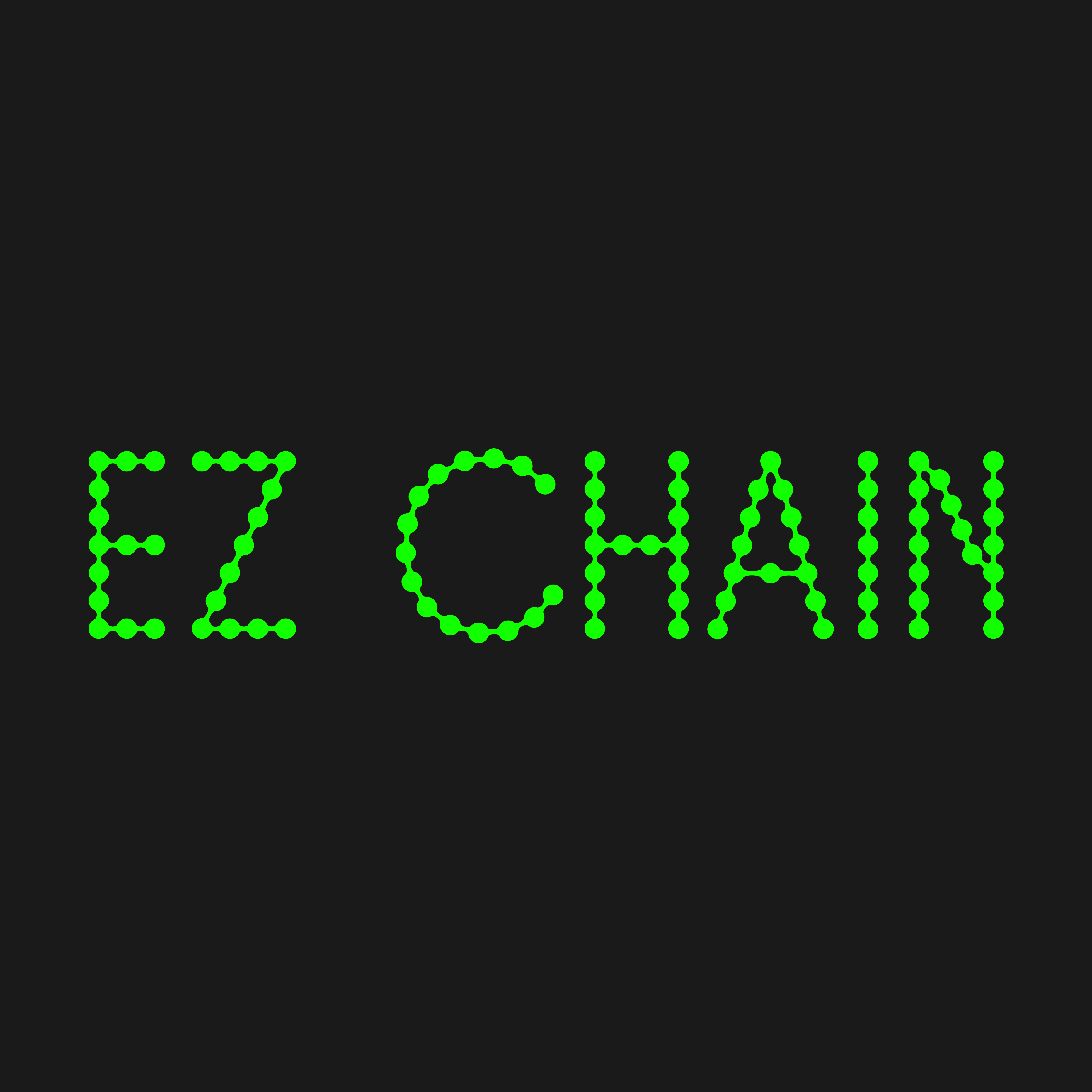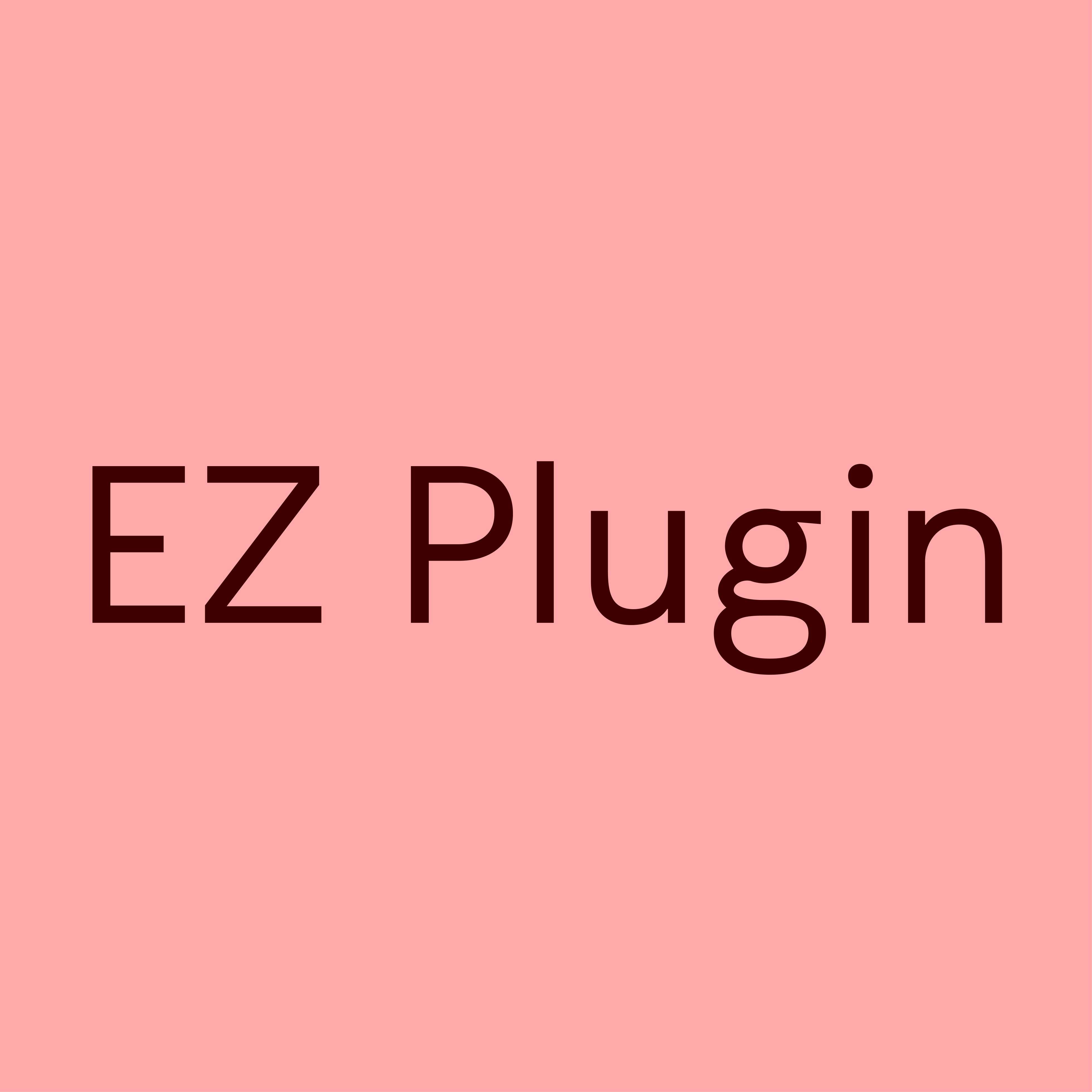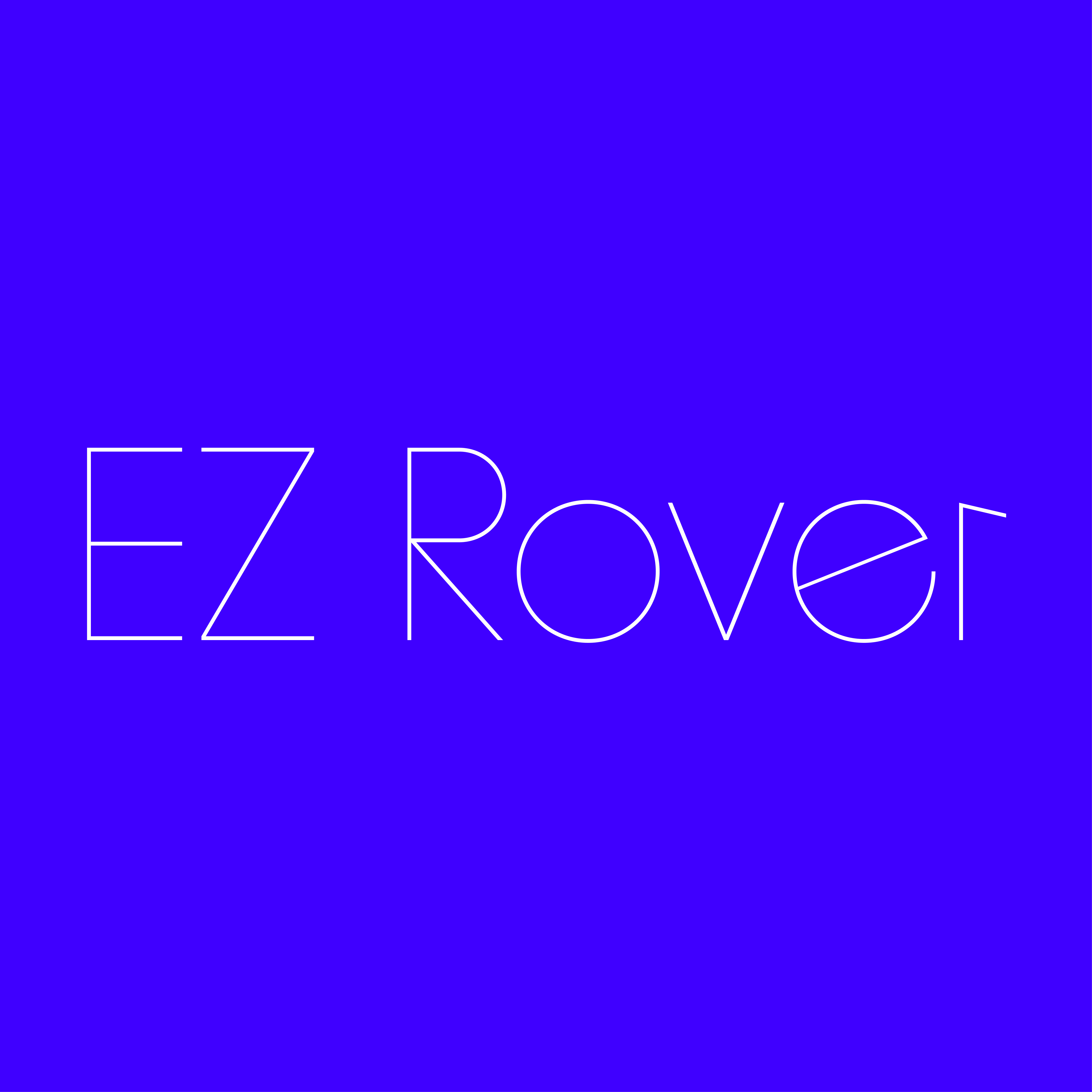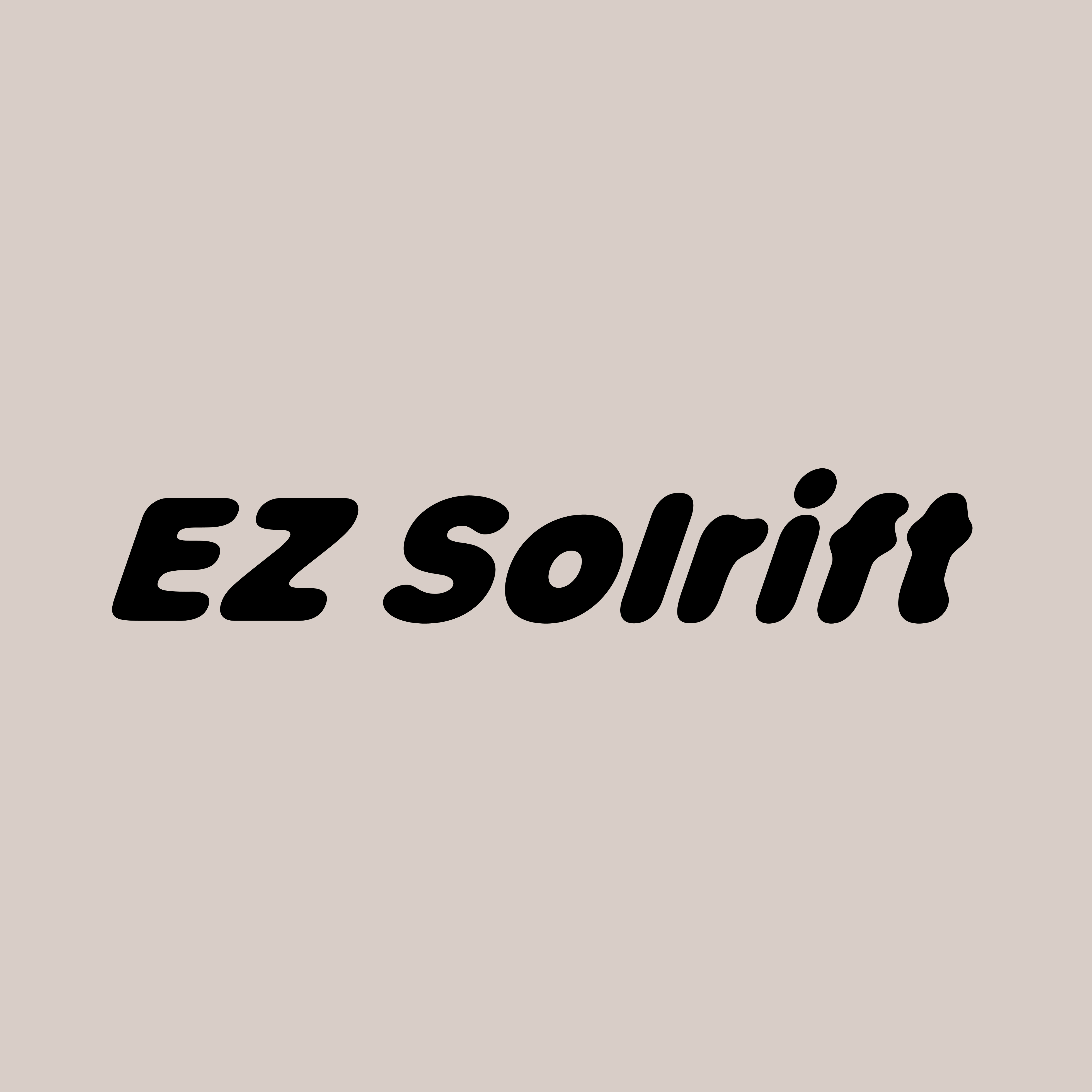
EZ Chain
Eazy Fonts · 2022
EZ Chain is a unique display font inspired by ballchains, creating organic, free-flowing letterforms that break away from traditional rigid grid-based dotted designs. EZ Chain is an modern display typeface that transforms the utilitarian geometry of industrial ball chains into a fluid typographic system. Unlike traditional dotted fonts built on rigid grid or bitmap structures, EZ Chain creates each letter through continuous relationships between connected circular forms, resulting in typography that feels organic, dynamic, and alive. EZ Chain recalls the 1990s, when ball chains transitioned from industrial hardware to an iconic youth fashion staple, and transforms its distinct shapes into an original and distinctive typeface bridging it to the history of halftone printing, bitmap typography, and contemporary graphic experimentation. EZ Chain balances structure with movement and is the connection between multiple generations.
EZ Plugin
Eazy Fonts · 2021
EZ Plugin is a versatile humanist modern sans-serif family with multiple weights, combining a warm, welcoming tone and flexible for branding, editorial, and digital use. EZ Plugin balances organic humanist proportions for contemporary design systems on and offline. Its range of weights delivers effortless adaptability across branding, editorial layouts, and digital environments–equally at home in expressive headlines and disciplined user interface typography.
EZ Rover
Eazy Fonts · 2022
EZ Rover is a refined hairline sans-serif inspired by Futura and Avant Garde, blending geometric modernism with contemporary distinctiveness. Inspired by the rational forms that defined twentieth-century typography, EZ Rover draws from a tradition that sought to reduce letterforms to their essential geometry. Yet rather than functioning as a historical revival, it introduces contemporary refinements that bring new character to familiar forms. Its ultra-light construction creates a striking tension between precision and elegance. Every curve, terminal, and counter has been carefully balanced to maintain clarity while embracing a distinctly modern presence. Designed for projects in branding, fashion, editorial, and more. Free trials at eazyfonts.com
EZ Solrift
Eazy Fonts · 2025
EZ Solrift – A rounded display typeface softened by light, time, and atmosphere. Its softened forms recall vinyl lettering after years of sun exposure, where sharp edges gradually give way to smoother contours and unexpected character. Like materials that evolve under the influence of light, the letterforms embody a quiet transformation—one that feels familiar, tactile, fluid, and deeply human.